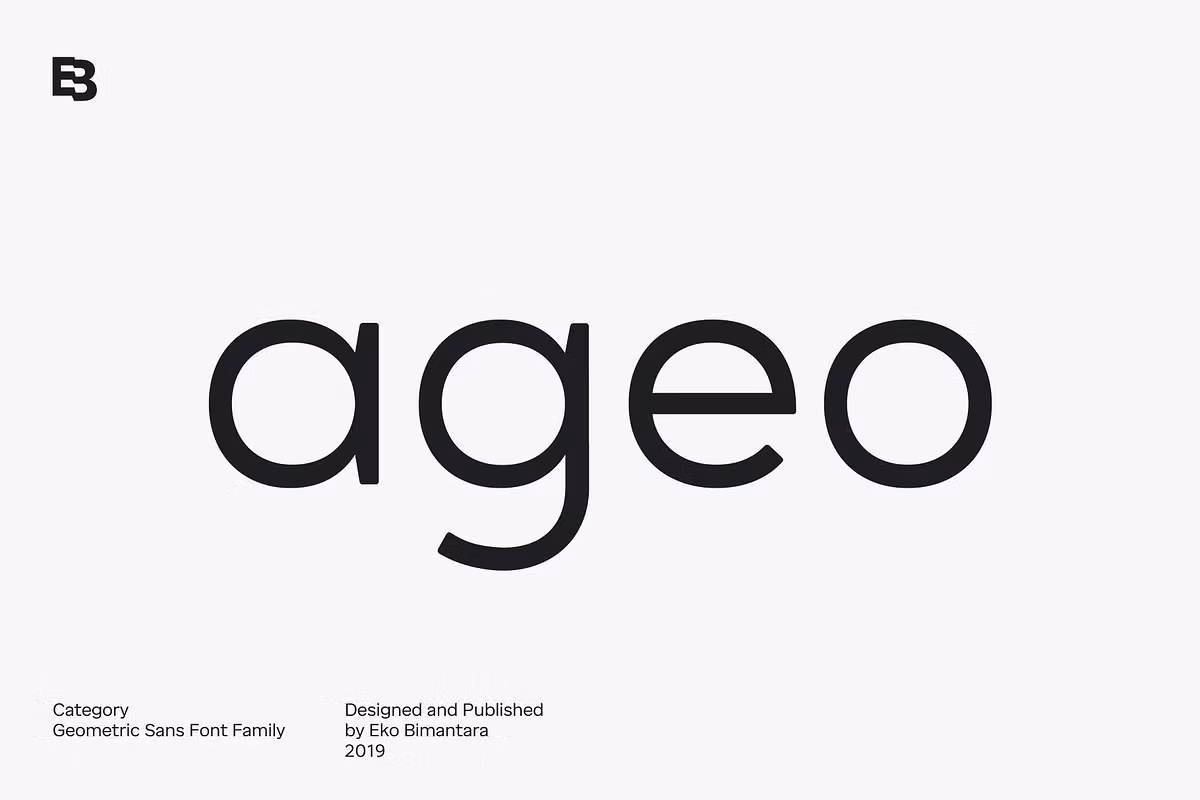
Ageo; 16 Geometric Font Family Free Download
Ageo; 16 Geometric Font Family Free Download is a modern and minimalist sans-serif typeface collection inspired by classic geometric design principles. With 16 diverse styles—from thin to black, including italics—Ageo offers the perfect balance of functionality and aesthetic appeal, making it ideal for branding, web design, editorial layouts, posters, and corporate materials.
Its clean, circular letterforms and uniform structure create a sleek, contemporary look while maintaining excellent legibility across all mediums. Whether you're designing user interfaces or marketing materials, Ageo gives you the versatility and consistency you need to create a polished and professional appearance.